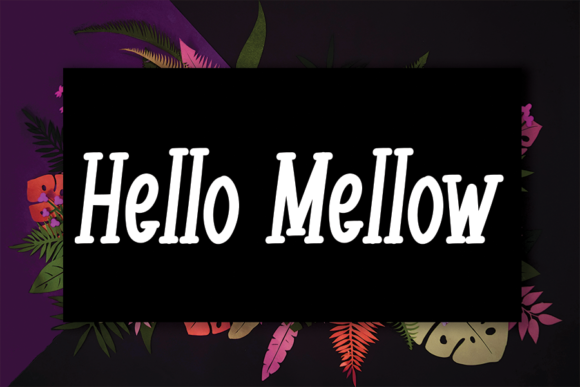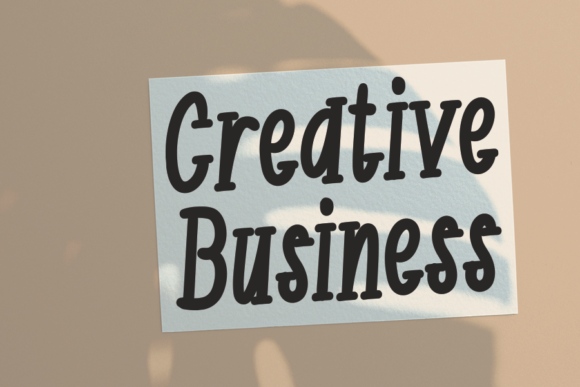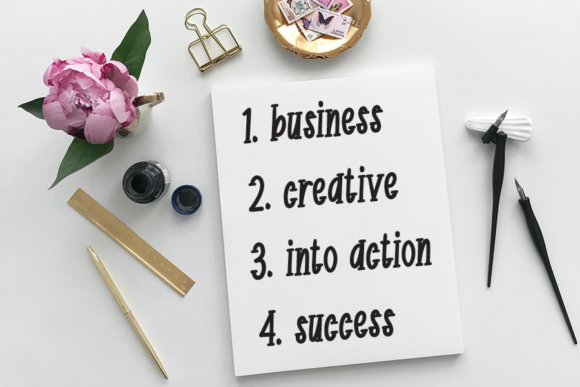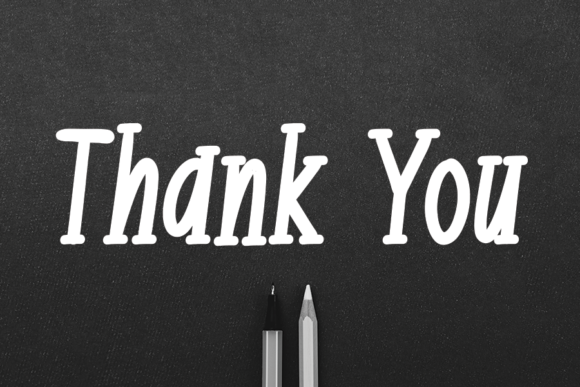
Mogellia Font
About Mogellia Font
Mogellia is a beautiful handwritten font with a great style. Whether you’re looking for fonts for Instagram or calligraphy scripts for DIY projects, Mogellia will turn any creative idea into a true piece of art!